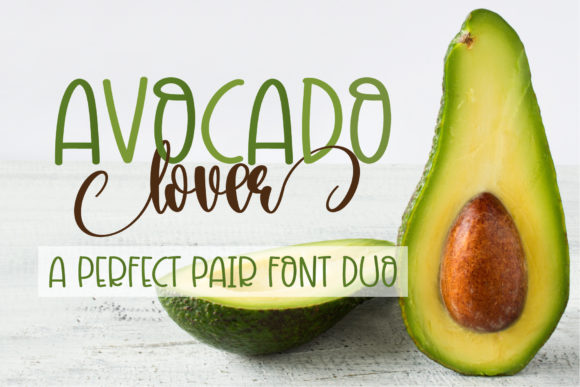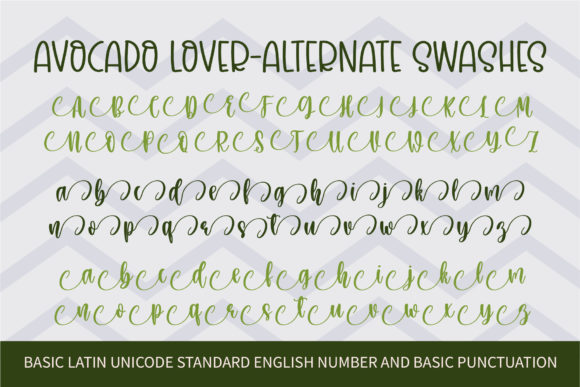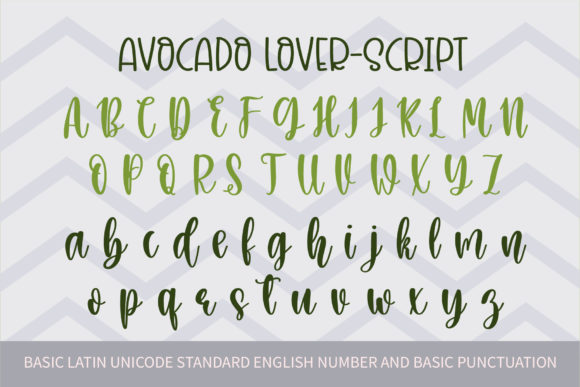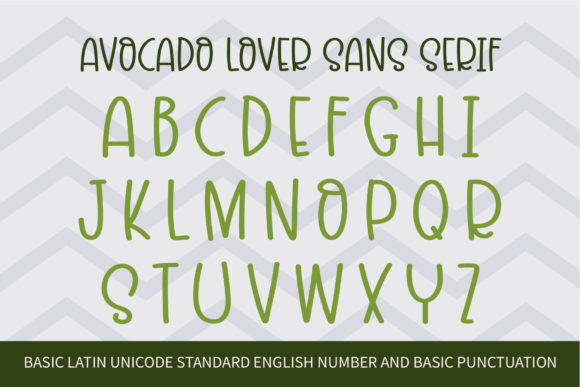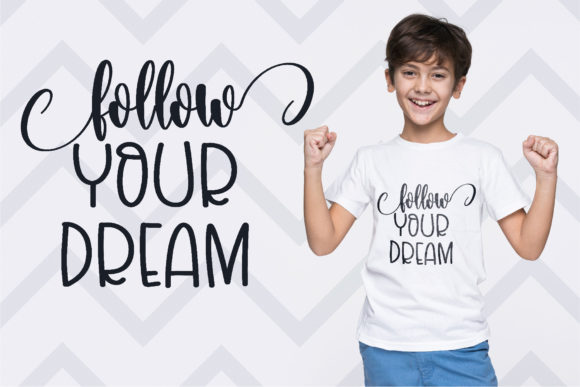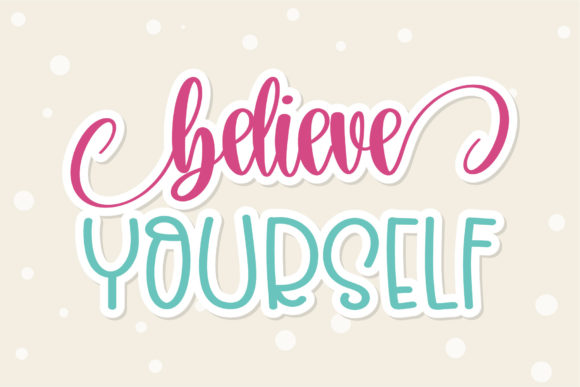
Introducing Avocado Lover Font: The Perfect Duo for Your Design Needs
Are you a designer or crafter looking for a unique and charming font to elevate your designs? Look no further than the Avocado Lover Font, a delightful duo font that combines the best of sans serif and script styles. This beautiful font is perfect for adding a customized touch to any design, and its PUA encoding makes it easy to access a wide range of glyphs and swashes.
The Avocado Lover Font: A Duo of Elegance and Charm
The Avocado Lover Font is a carefully crafted duo font that pairs a sans serif style with a beautiful script font. The sans serif font is clean and modern, while the script font adds a touch of elegance and sophistication. Together, they create a unique and eye-catching combination that is sure to make your designs stand out.
One of the key features of the Avocado Lover Font is its versatility. It can be used for a wide range of design projects, from branding and packaging to invitations and social media graphics. Whether you’re creating a logo, a flyer, or a social media post, this font is sure to add a touch of charm and personality to your design.
The Avocado Lover Font is PUA (Private Use Area) encoded, which means that it has a wide range of glyphs and swashes that can be easily accessed. This makes it easy to add flourishes and decorations to your text, giving your designs an extra touch of elegance and sophistication.
Why Designers and Crafters Love the Avocado Lover Font
So why do designers and crafters love the Avocado Lover Font? Here are just a few reasons:
- Unique and eye-catching: The Avocado Lover Font is a unique and eye-catching duo font that is sure to make your designs stand out.
- Versatile: This font can be used for a wide range of design projects, from branding and packaging to invitations and social media graphics.
- Elegant and charming: The Avocado Lover Font has a charming and elegant feel that is perfect for adding a touch of sophistication to your designs.
- Easy to use: With PUA encoding, it’s easy to access a wide range of glyphs and swashes, making it easy to customize your text and add unique touches to your designs.
How to Use the Avocado Lover Font in Your Designs
Using the Avocado Lover Font in your designs is easy. Here are a few tips to get you started:
- Pair it with other fonts: The Avocado Lover Font pairs well with a wide range of other fonts, so don’t be afraid to experiment with different combinations.
- Use it for headings and titles: The Avocado Lover Font is perfect for headings and titles, where its elegant and charming feel can really shine.
- Add flourishes and decorations: With PUA encoding, you can easily add flourishes and decorations to your text, giving your designs an extra touch of elegance and sophistication.
In conclusion, the Avocado Lover Font is a beautiful and versatile duo font that is perfect for designers and crafters looking to add a touch of elegance and charm to their designs. With its PUA encoding and wide range of glyphs and swashes, it’s easy to customize and use in a wide range of design projects. Whether you’re creating a logo, a flyer, or a social media post, the Avocado Lover Font is sure to make your designs stand out.